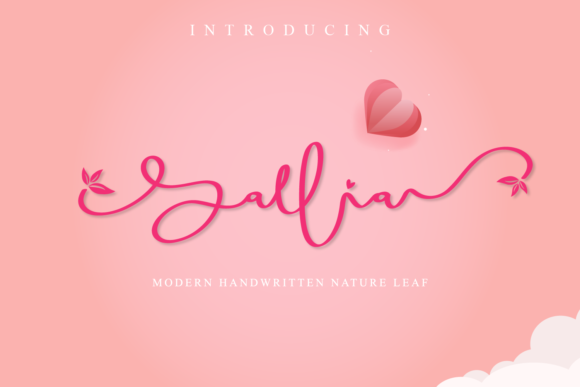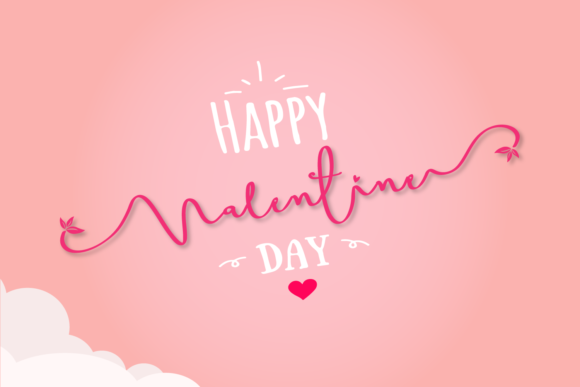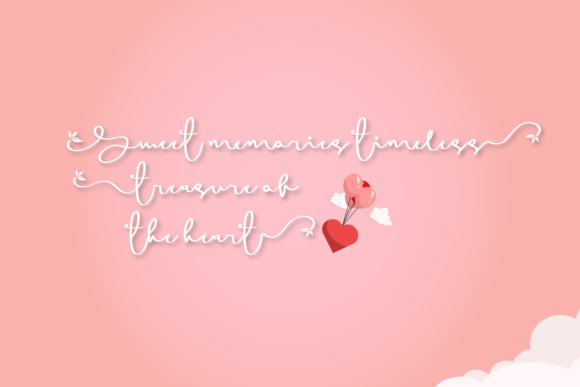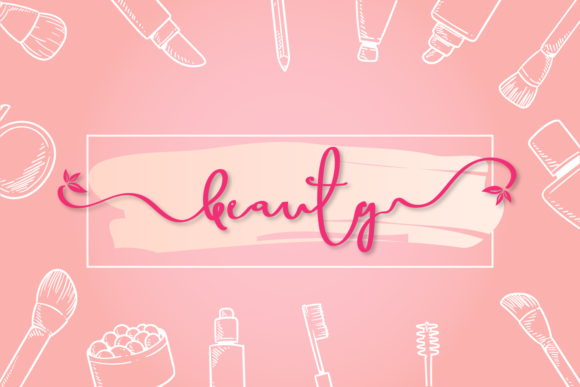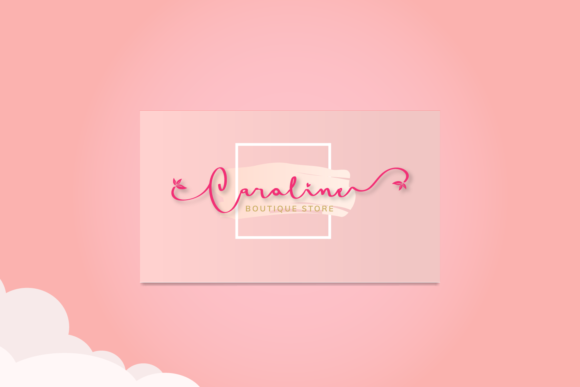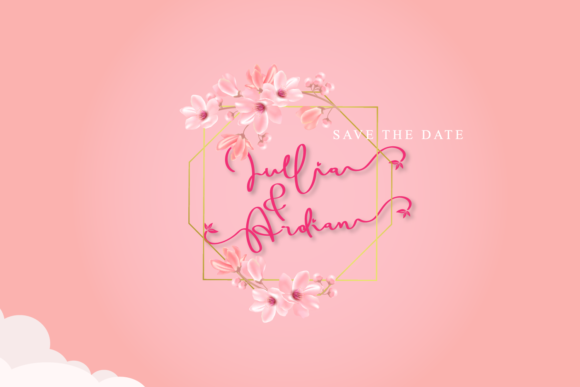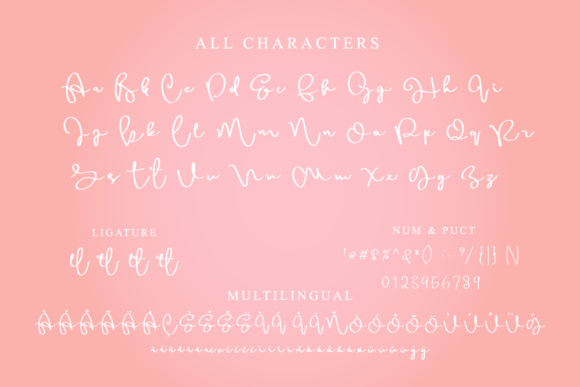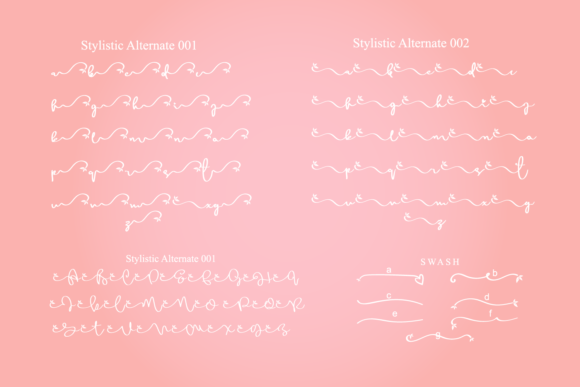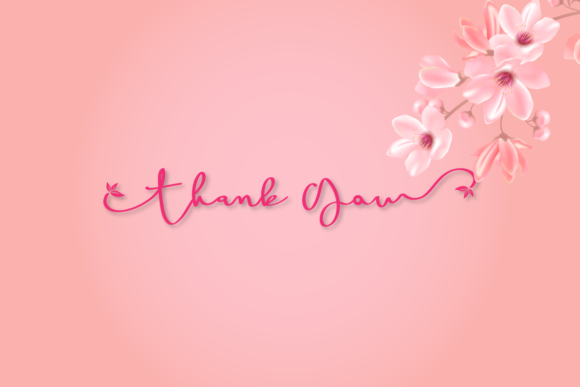
HomeScript FontsSallia Font Script Fonts Sallia Font FacebookXPinterestWhatsApp Sallia Font Poster 2 Sallia Font Poster 3 Sallia Font Poster 4 Sallia Font Poster 5 Sallia Font Poster 6 Sallia Font Poster 7 Sallia Font Poster 8 Sallia Font Poster 9 About Sallia Font Sallia is a gorgeous script with friendly and cute swashes. Get inspired by its romantic charm! DOWNLOAD NOW People also explored Small Font Pinky Yellow Font National Archive Brokenristea2 Font Aquanetta Font Audryna Font Monkey Poesy Font September Font Arkanotes Font 295 0 TagsSallia Font Previous articleEdword FontNext articleMarie Font LEAVE A REPLY Cancel reply Comment: Please enter your comment! Name:* Please enter your name here Email:* You have entered an incorrect email address! Please enter your email address here Website: Save my name, email, and website in this browser for the next time I comment. Personal Use Free Pattern Personal Use Free Read more about this font Rheiborn Personal Use Free Read more about this font Quickline Personal Use Free Read more about this font Deling Personal Use Free Read more about this font BLOG The 10 Best Handwriting Fonts to Add Personality to Your Designs 10 of the Best Handwriting Fonts for Adding Personality to Your Designs There will undoubtedly be no other better choice than handwriting fonts to give... Top 7 Google Fonts Alternatives for Faster and Privacy-Friendly Web Design (2025) Modern Sans-Serif Fonts That Brands Love in 2025 Exploring Font Trends